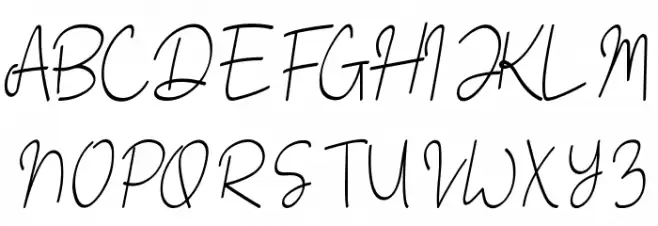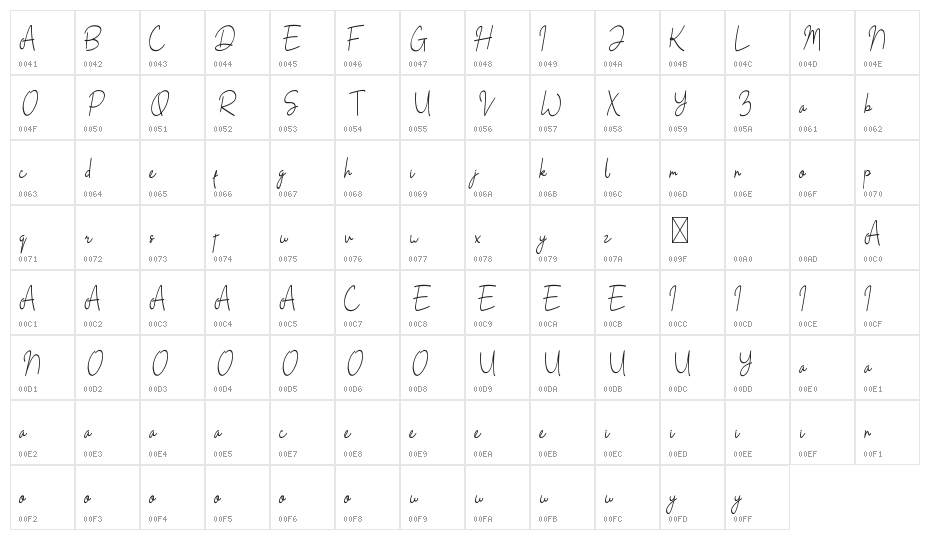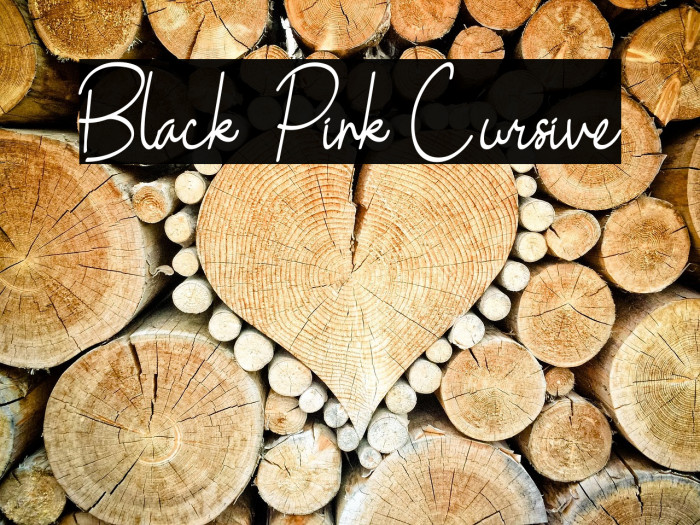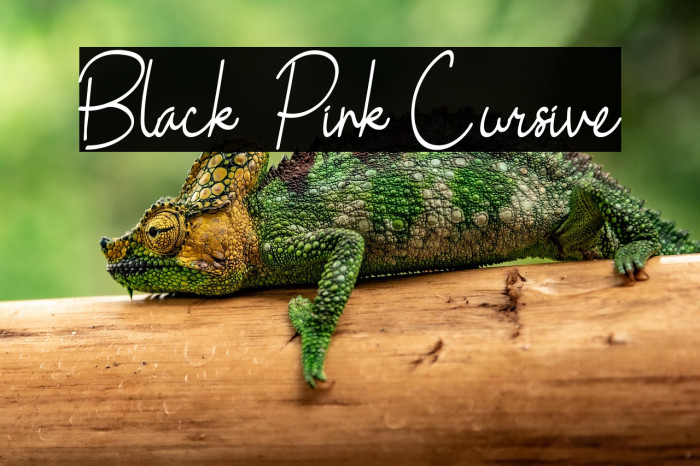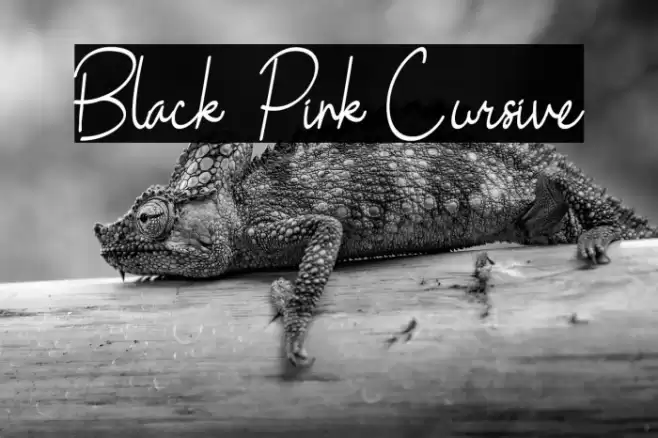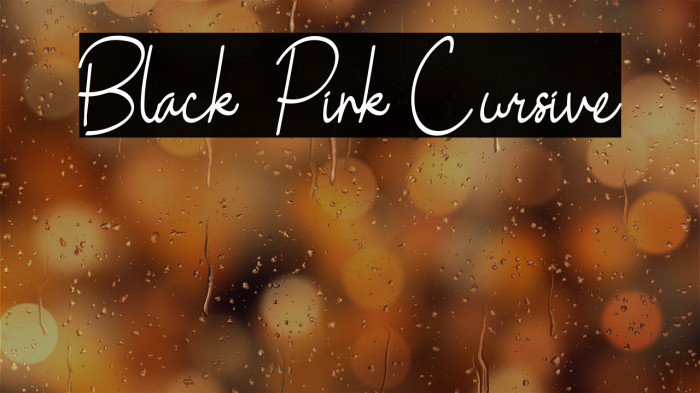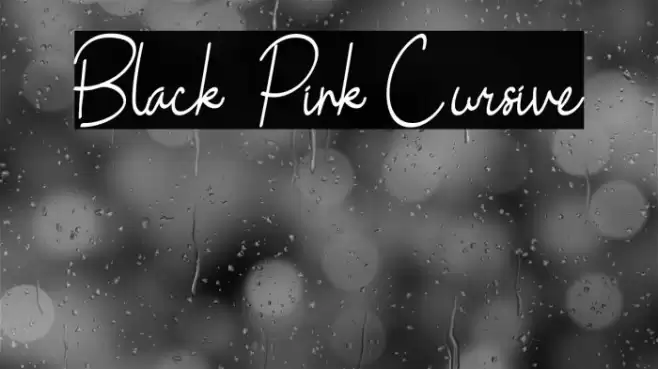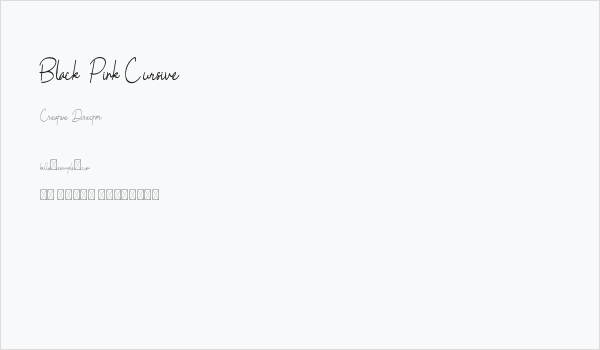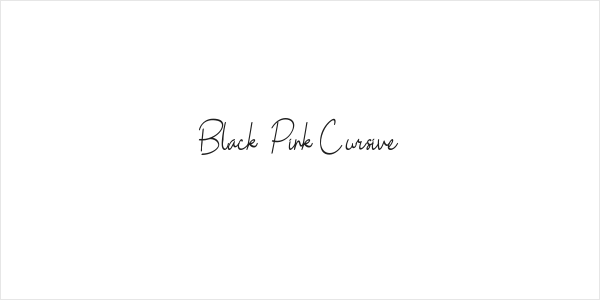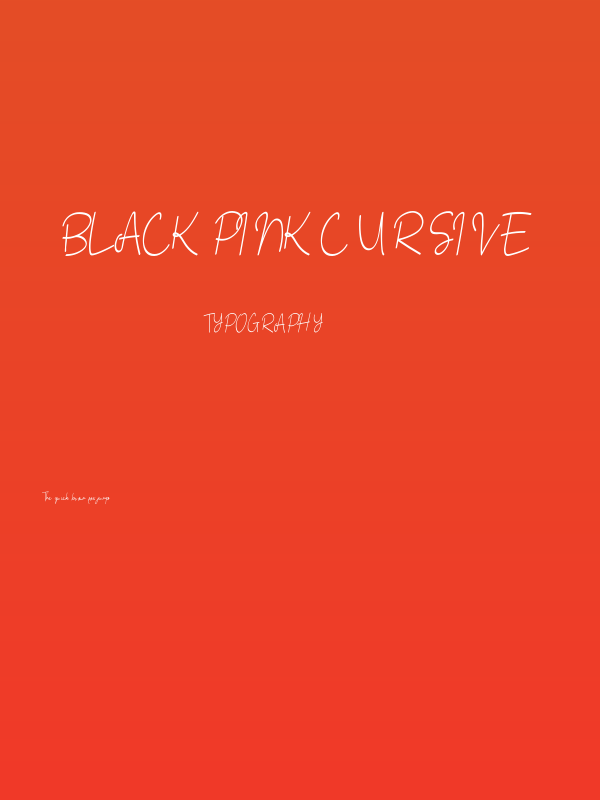
Black Pink Cursive Font
Black Pink Cursive Description
This font features a flowing, cursive style that exudes elegance and sophistication. The letters are connected in a smooth, continuous manner, creating a sense of fluidity and grace. The uppercase letters are tall and slender, with gentle curves and loops that add a touch of whimsy. The lowercase letters maintain the same fluidity, with some letters featuring distinctive loops and swirls. The overall appearance is both stylish and readable, making it suitable for a variety of design projects. The font's delicate strokes and elegant curves make it ideal for adding a personal touch to invitations, greeting cards, and other creative projects.
| Proposed Projects | Ideal for wedding invitations, greeting cards, personal branding, and elegant stationery. |